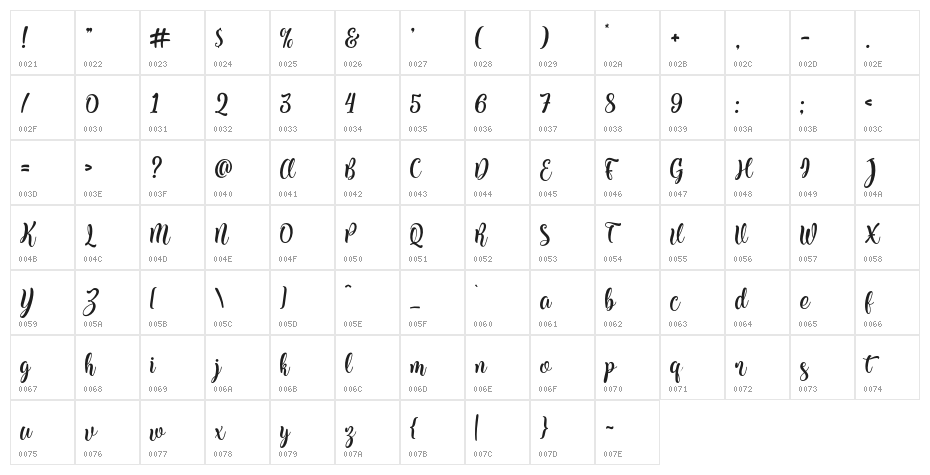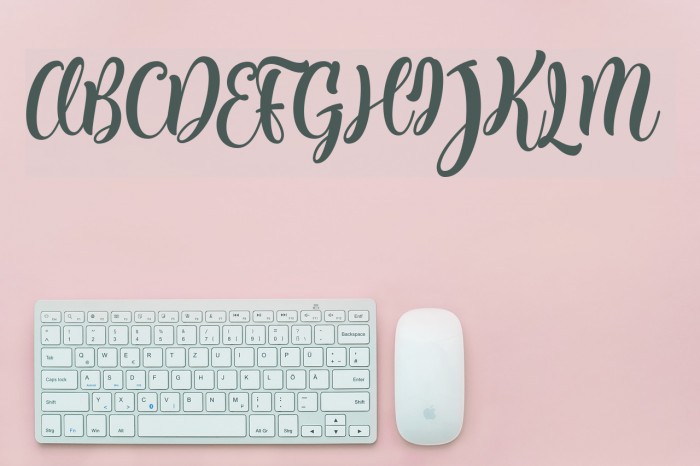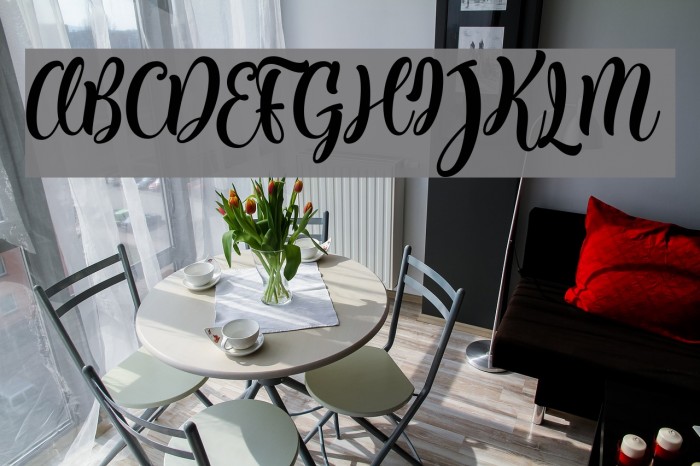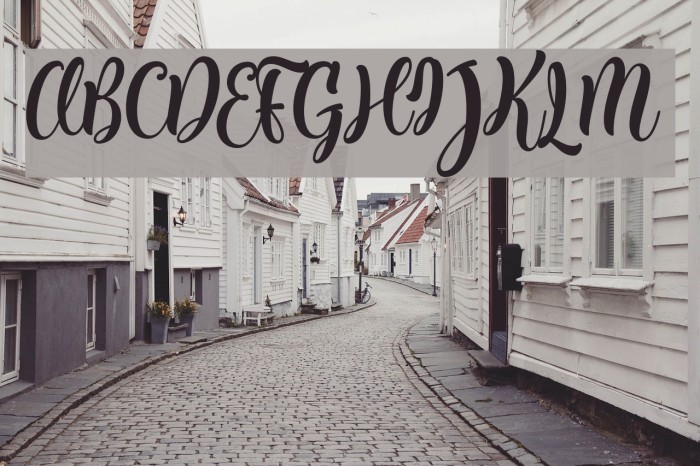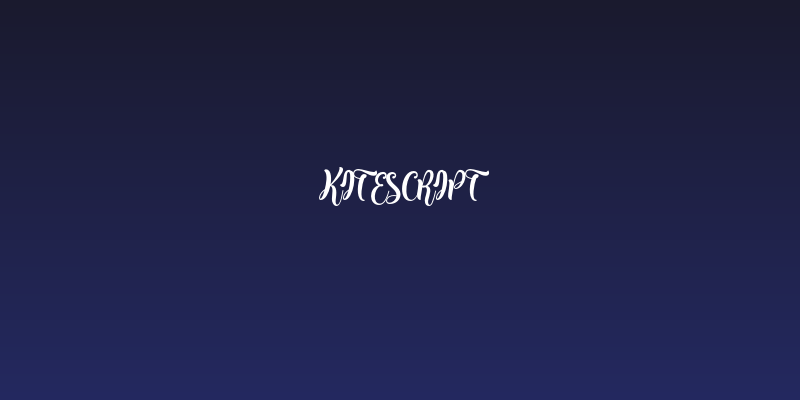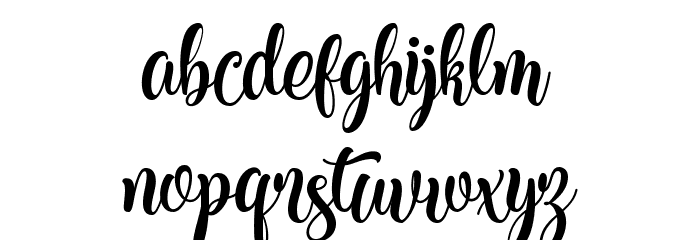
KiteScript Font
KiteScript Description
This font showcases a lively and flowing script style, characterized by its elegant and cursive letterforms. The uppercase letters exhibit a bold and sweeping design, while the lowercase letters maintain a consistent fluidity, enhancing readability. The numerals are crafted with a similar flair, ensuring uniformity across the typeface. Special characters are thoughtfully integrated, maintaining the overall aesthetic. The strokes are thick and consistent, providing a strong visual impact. This font is ideal for projects that require a touch of elegance and sophistication, such as invitations, branding, and decorative purposes.
| Proposed Projects | Ideal for wedding invitations, branding, logos, and decorative designs. |